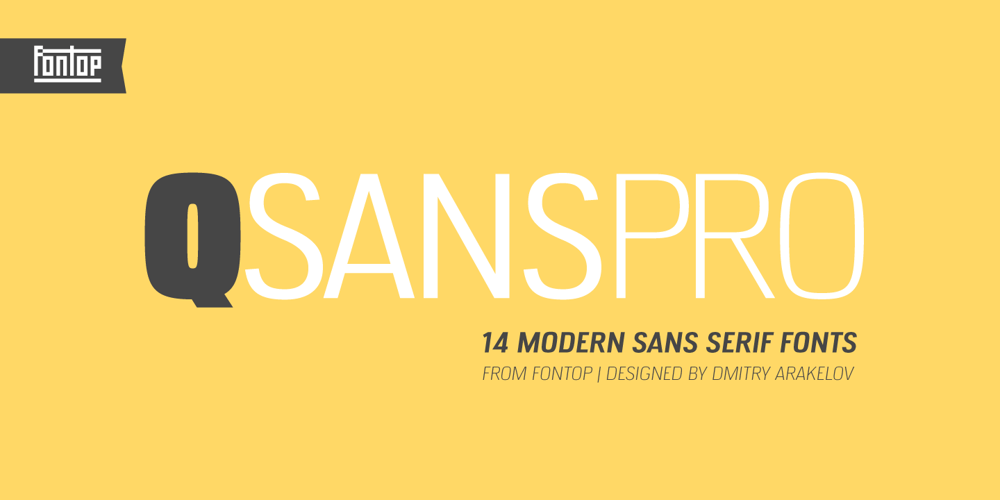
QSansPro
QSansPro font
QSansPro Font Family was designed by Dmitry Arakelov and published by Fontop. QSansPro contains 14 styles and family package options. Create bold headlines and elegant designs with a versatile QSansPro font family. Excellent for large type as well as logos, quotes, advertisements and more. QSansPro is a strong and sophisticated sans serif, yet classic and you’ll keep coming back to it again. Each font in this family is full of character and can stand on its own.